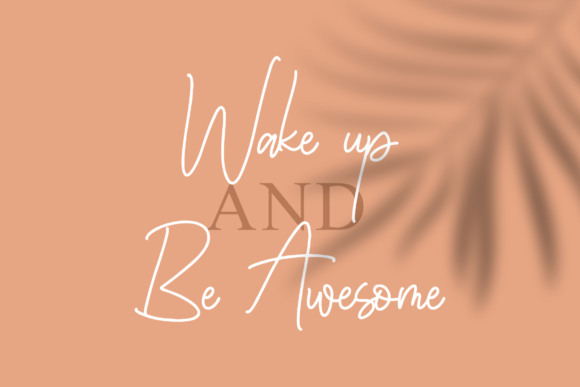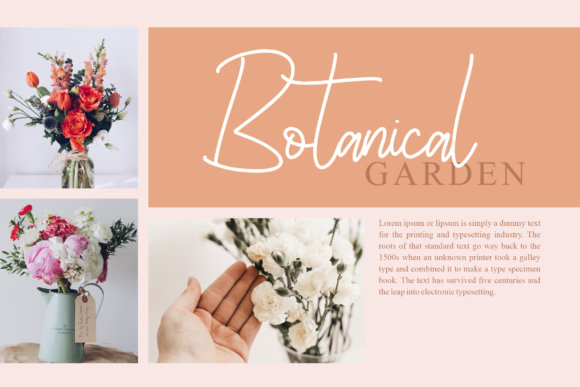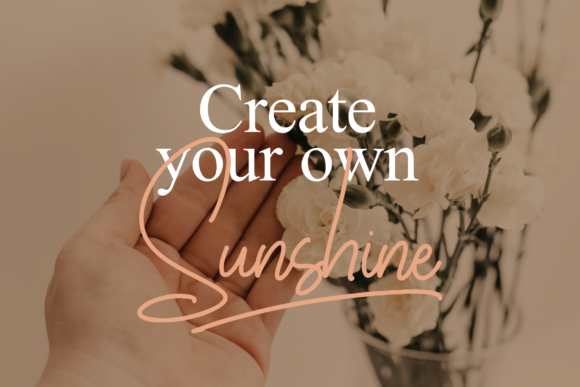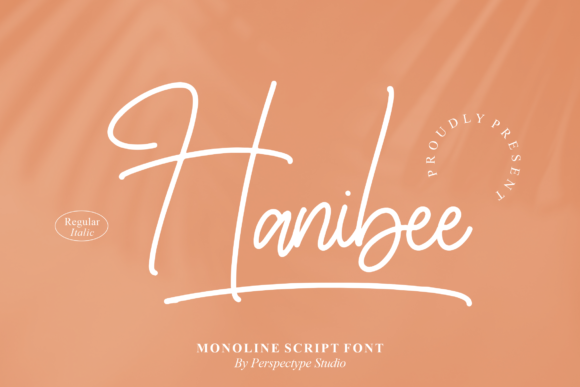
Introduction to Hanibee Font
Hanibee is a new modern script calligraphy typeface with its own unique flow and elegant personality.
Is suitable for all your design project needs such as logo design, branding, covers, posters, and more This font is PUA encoded which means you can access all of the amazing glyphs and ligatures with ease.
Key Features of Hanibee Font